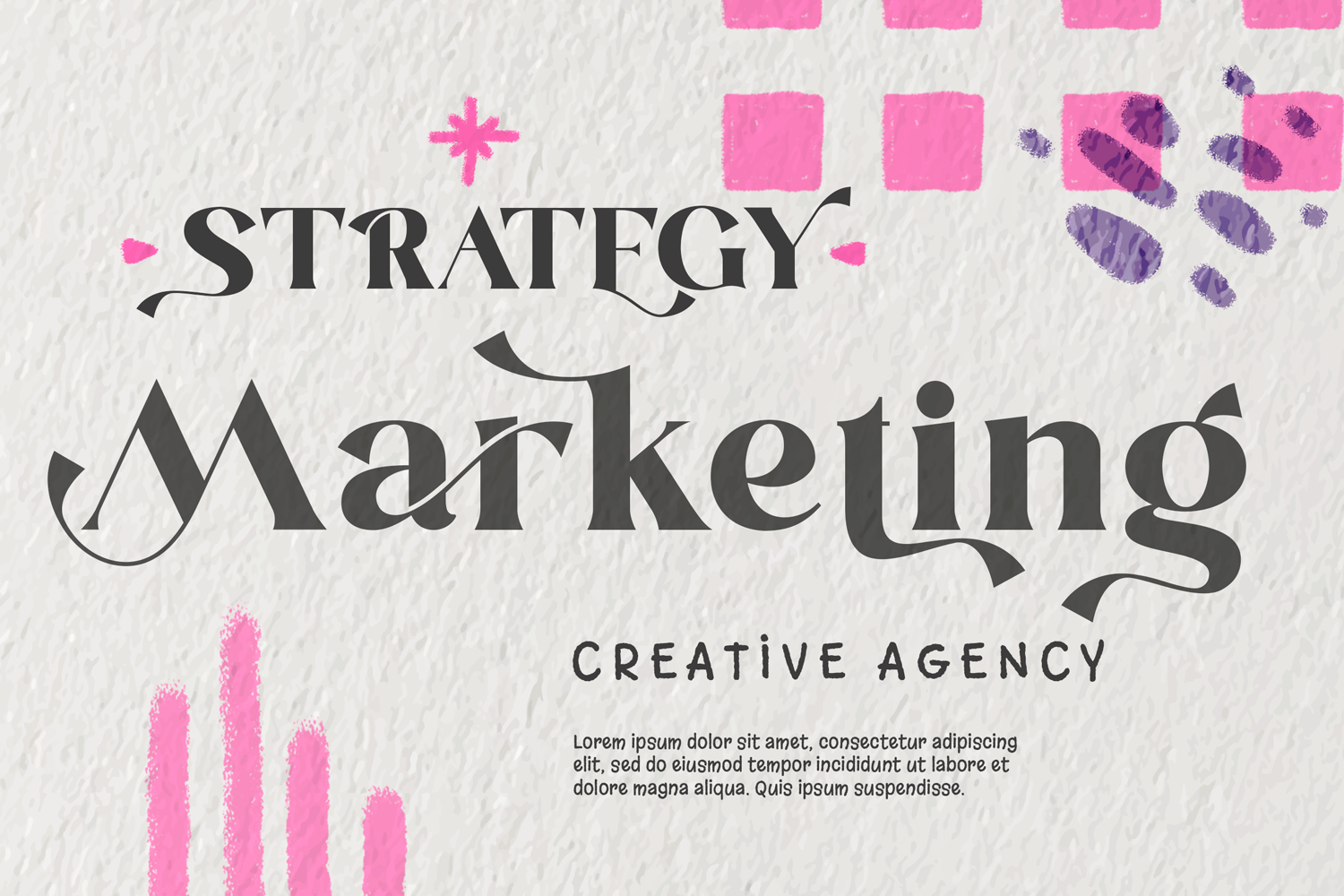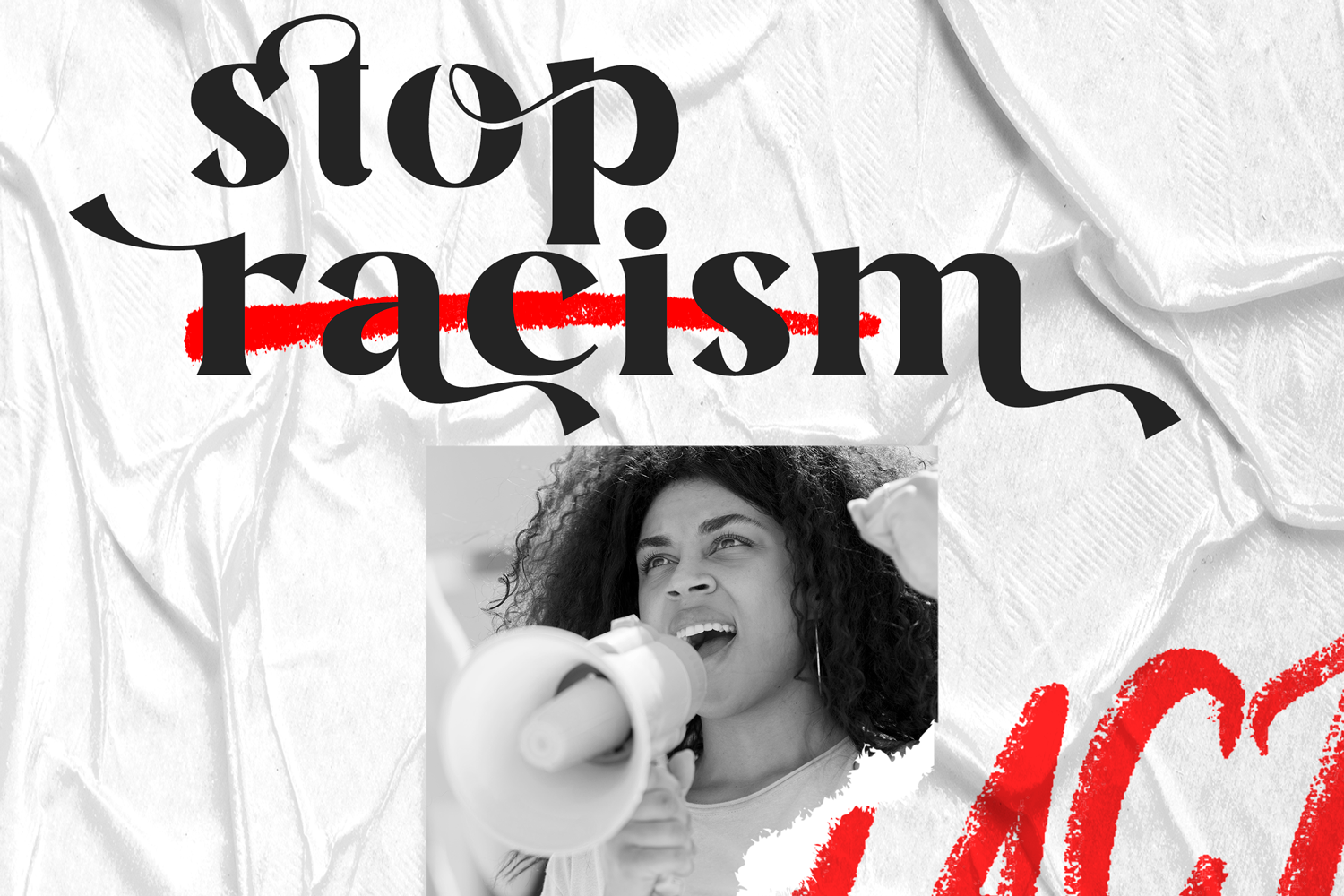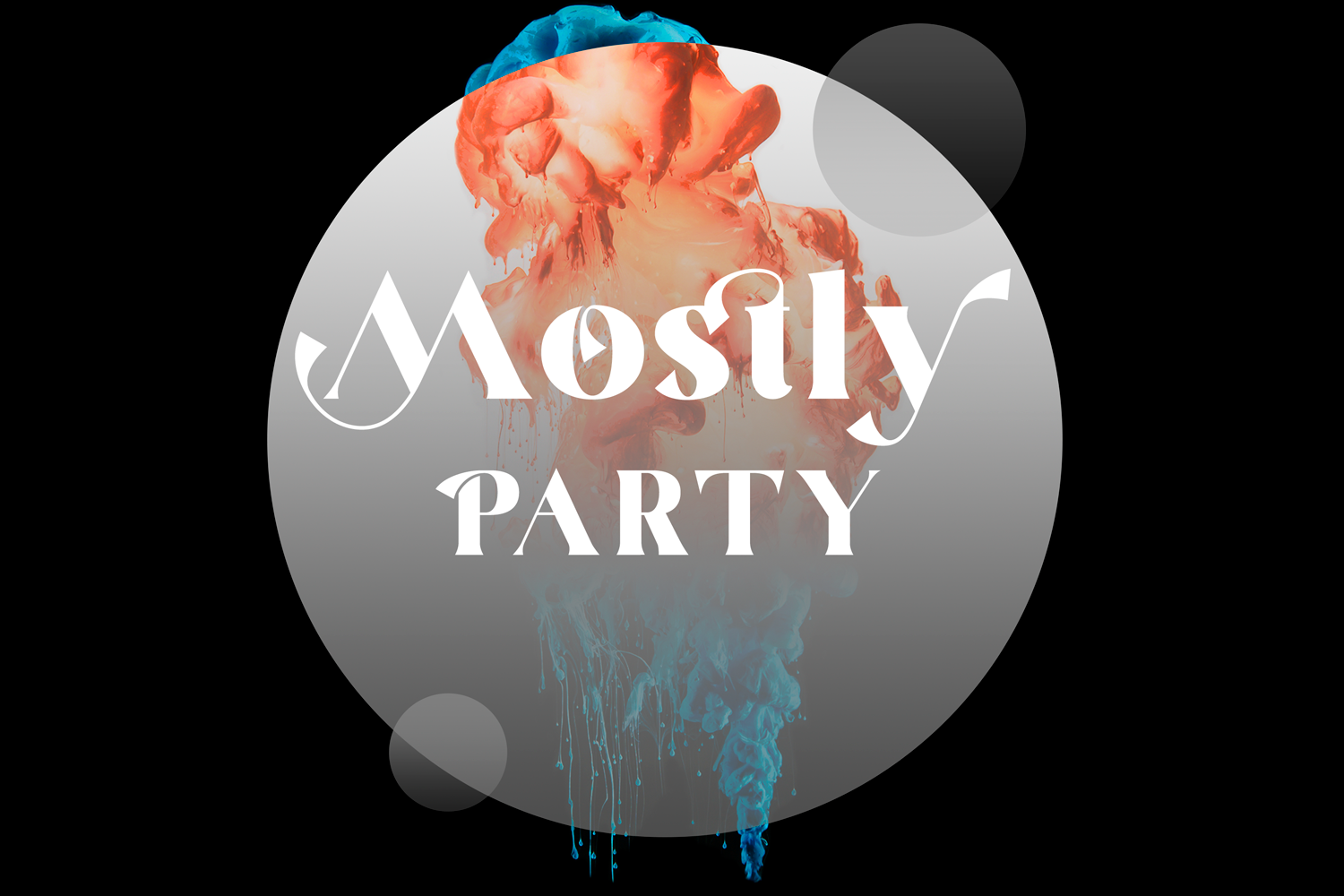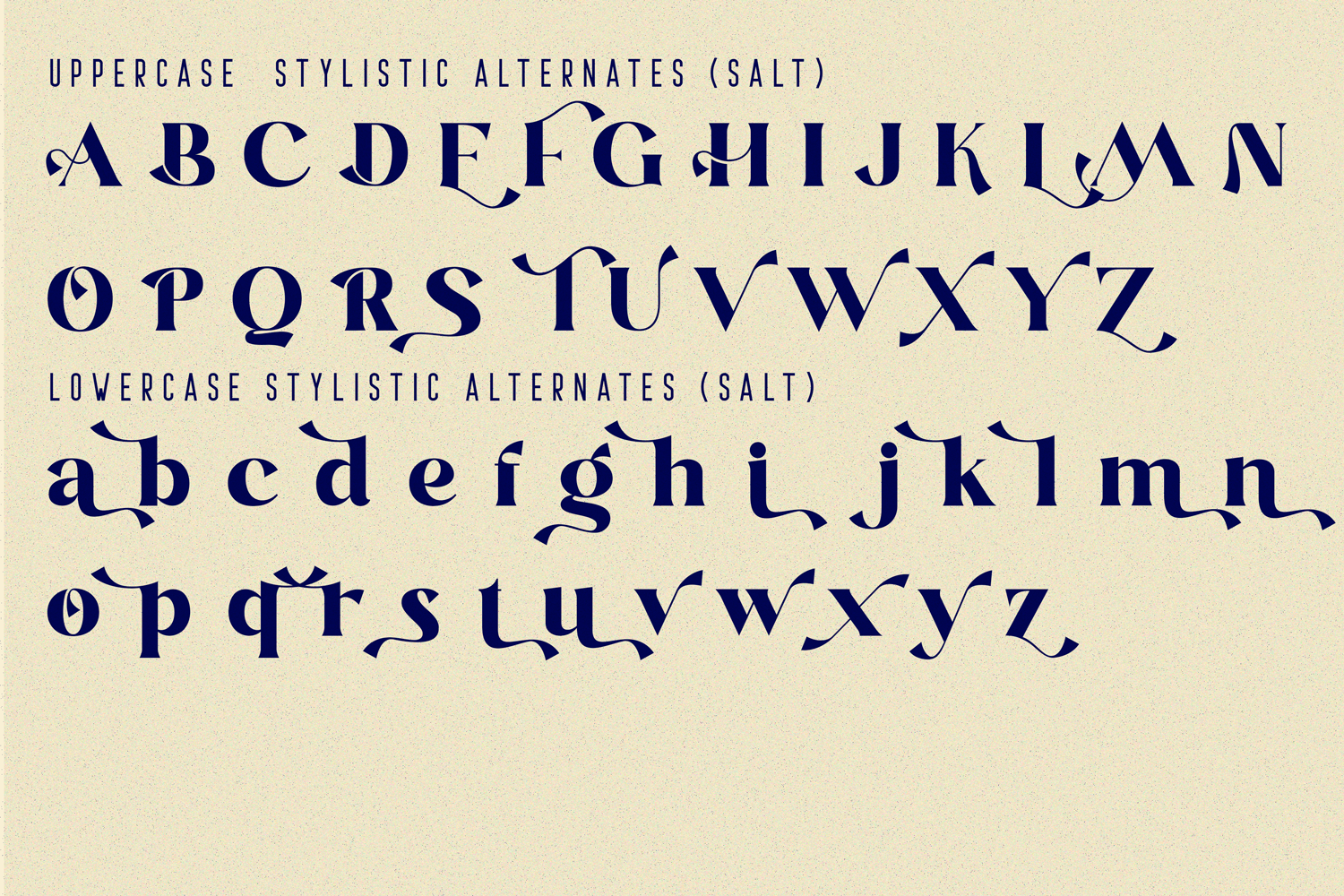
Blastula Font
Blastula Font is a magical modern vintage font will stylistic alternates and beautiful cutout ligatures. All Logos are fully editable with Adobe Photoshop or Illustrator. This is perfect for BRANDING and LOGO DESIGN. You will get classy, elegant, and certainly unique logos with this font.
To make it look more unique, here we prepared some ligatures:
ab ae ag ah am an ap ar cb ch cm cn cp cr db de dg dh dm dn dp dr eb eh em en ep er fj gi ib ih ik il jb jh jk jl ks oa ob oh om on op or Th tm tn th ss st qb qe qh qm qn qp qr